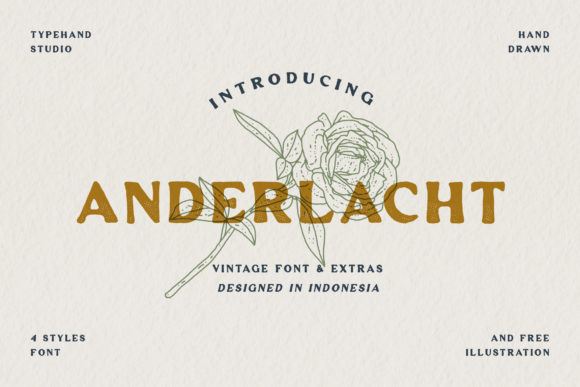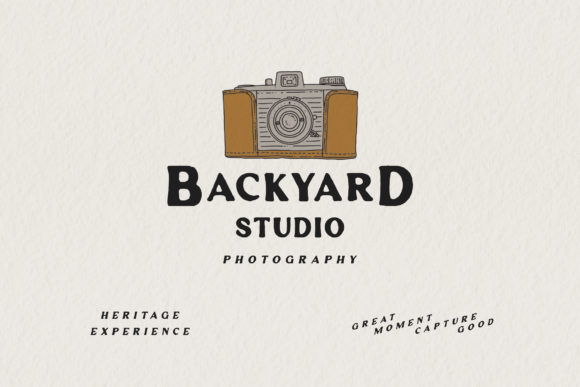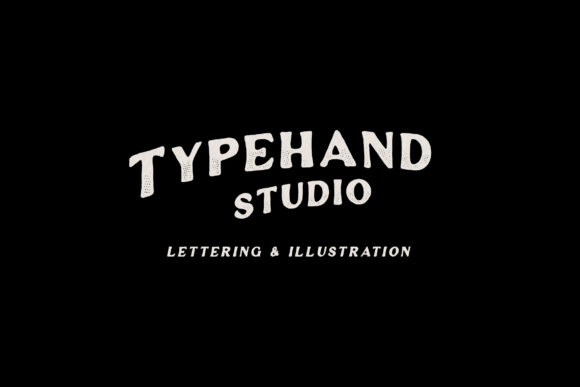
Anderlacht Font
Anderlacht is a cool, thick lettered and vintage styled display font. It can easily be matched to an incredibly large set of projects, so add it to your creative ideas and notice how it makes them stand out!